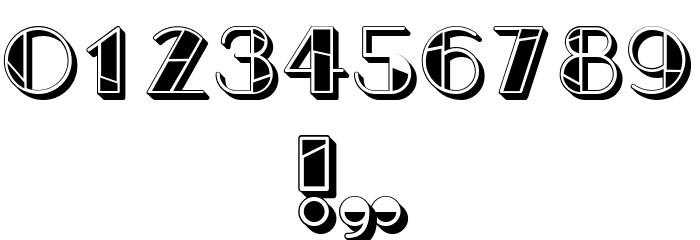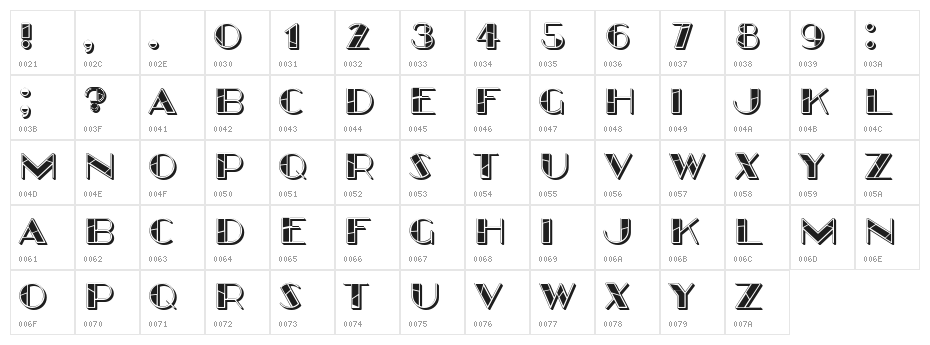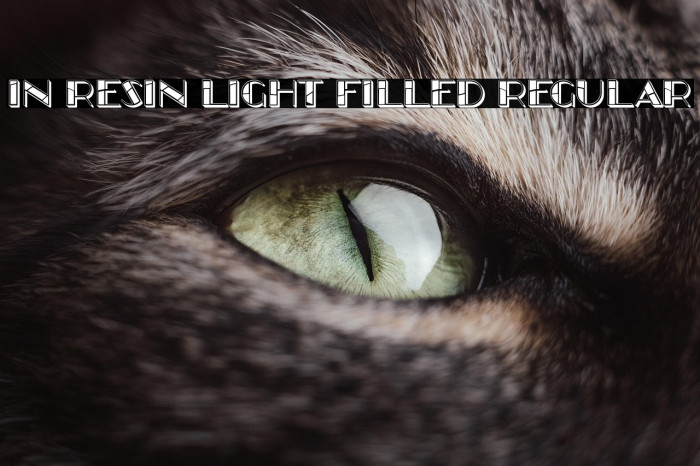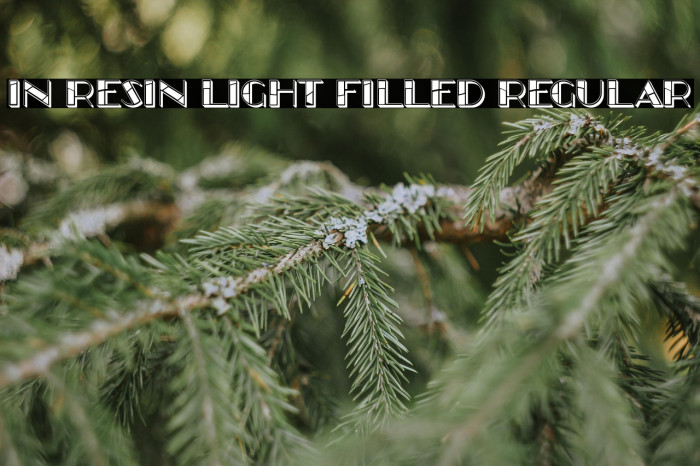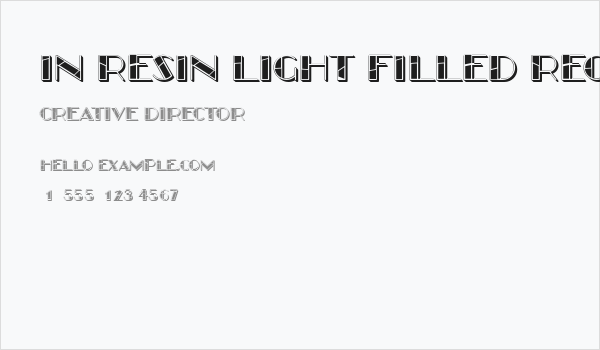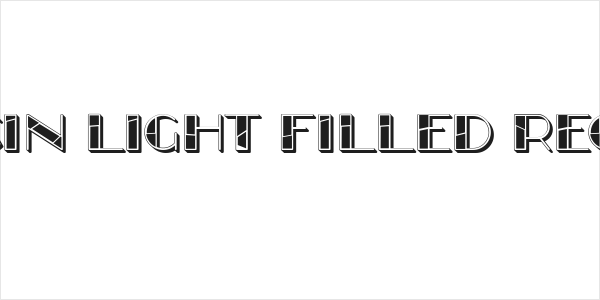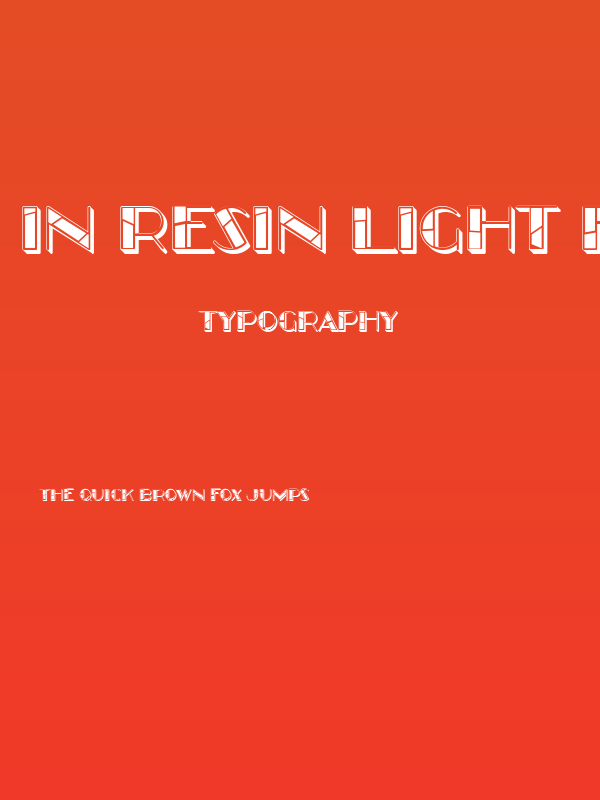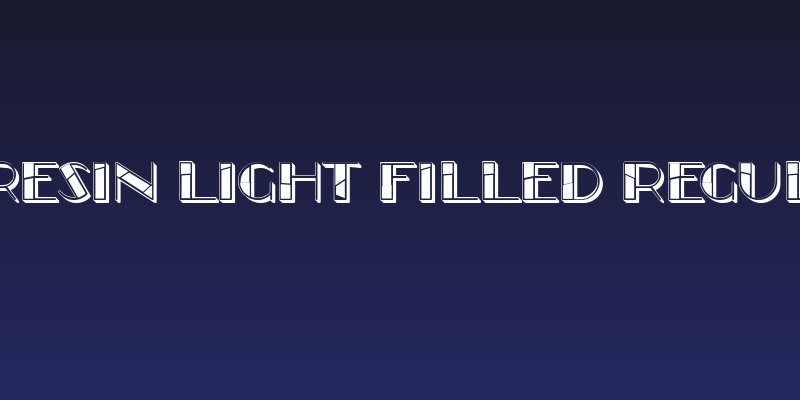
In Resin Light Filled Regular Font
In Resin Light Filled Regular Description
This font features a unique, modern design with a geometric and futuristic aesthetic. The characters are constructed with bold, angular lines and a hollow interior, creating a striking contrast between the filled and unfilled spaces. The uppercase and lowercase letters maintain a consistent style, with sharp edges and a sense of movement. The numbers and special characters follow the same design principles, ensuring uniformity across the entire set. This font is ideal for projects that require a bold and eye-catching typeface, such as branding, posters, and digital media.
| Proposed Projects | Ideal for branding, posters, digital media, and any project needing a bold, futuristic look. |